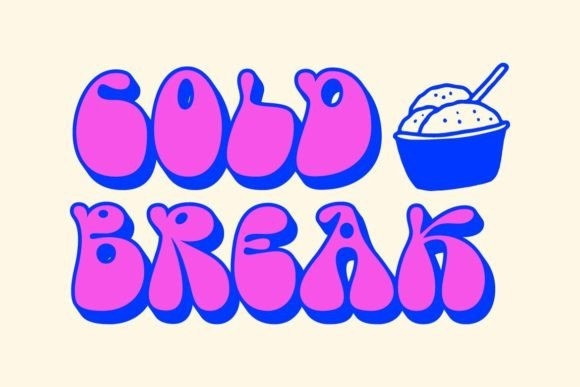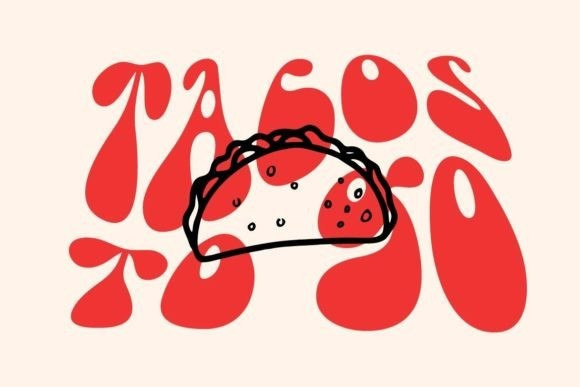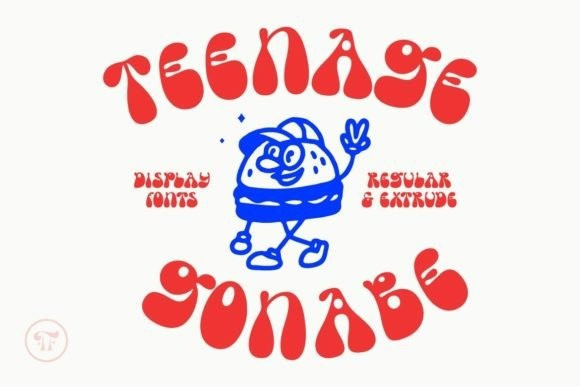
Teenage Gonabe Font
Teenage Gonabe Font is a groovy typeface that’s sure to transport you back to the funky, psychedelic era of the 60s and 70s! With its bold, playful style and unique character, this font is perfect for adding a retro feel to your design projects.